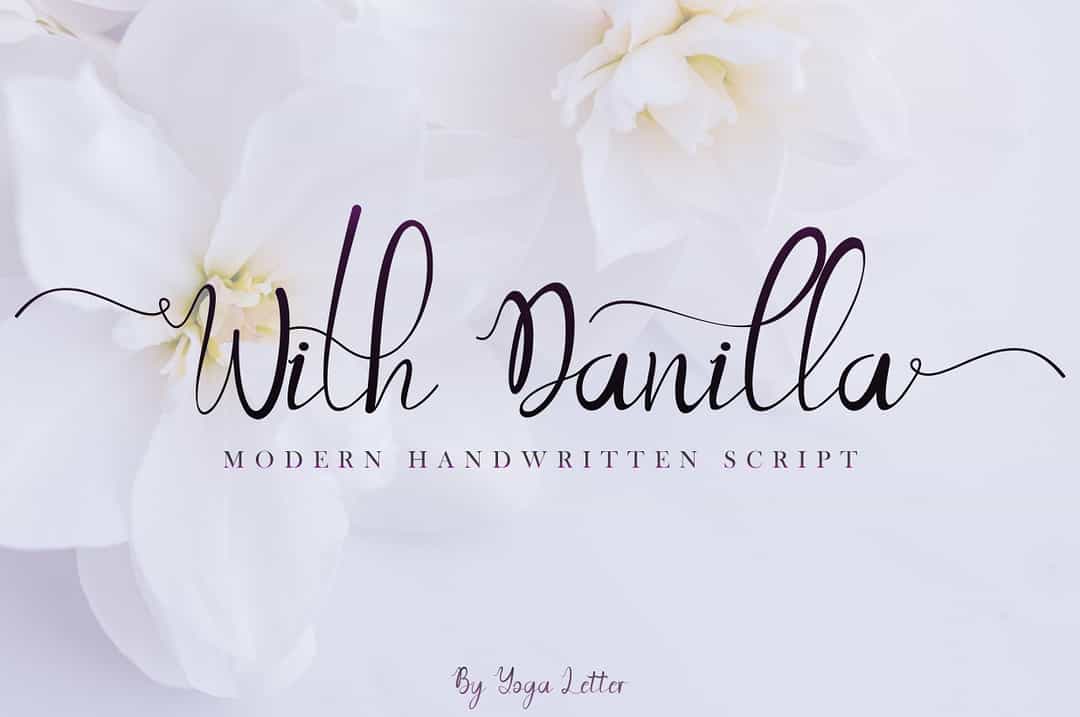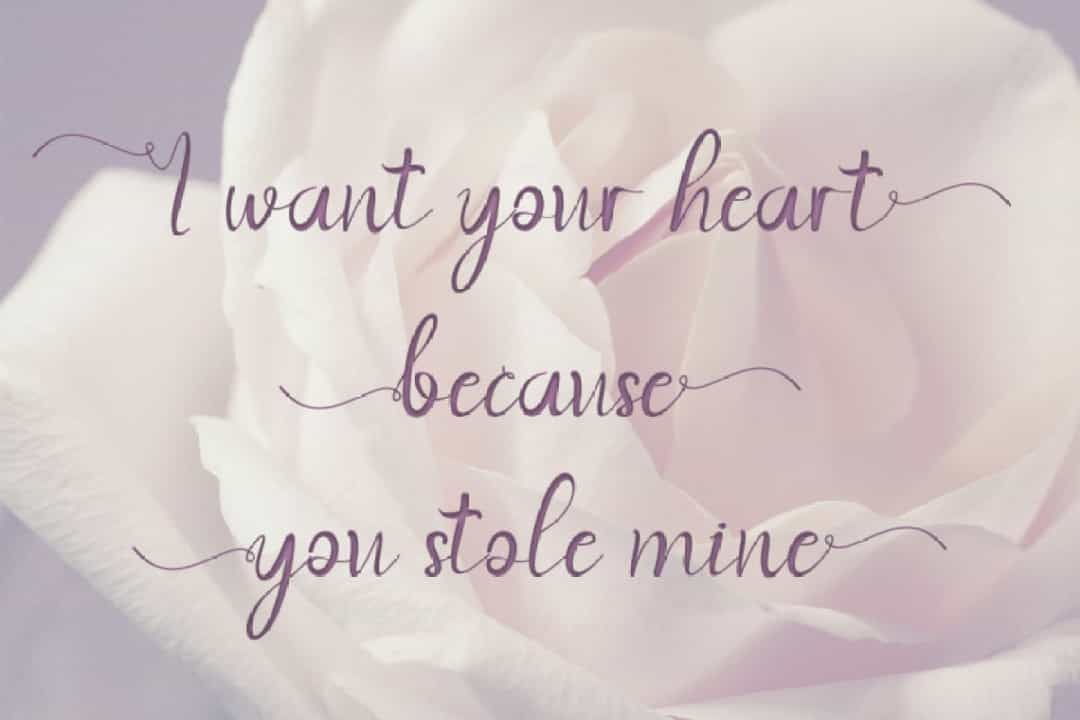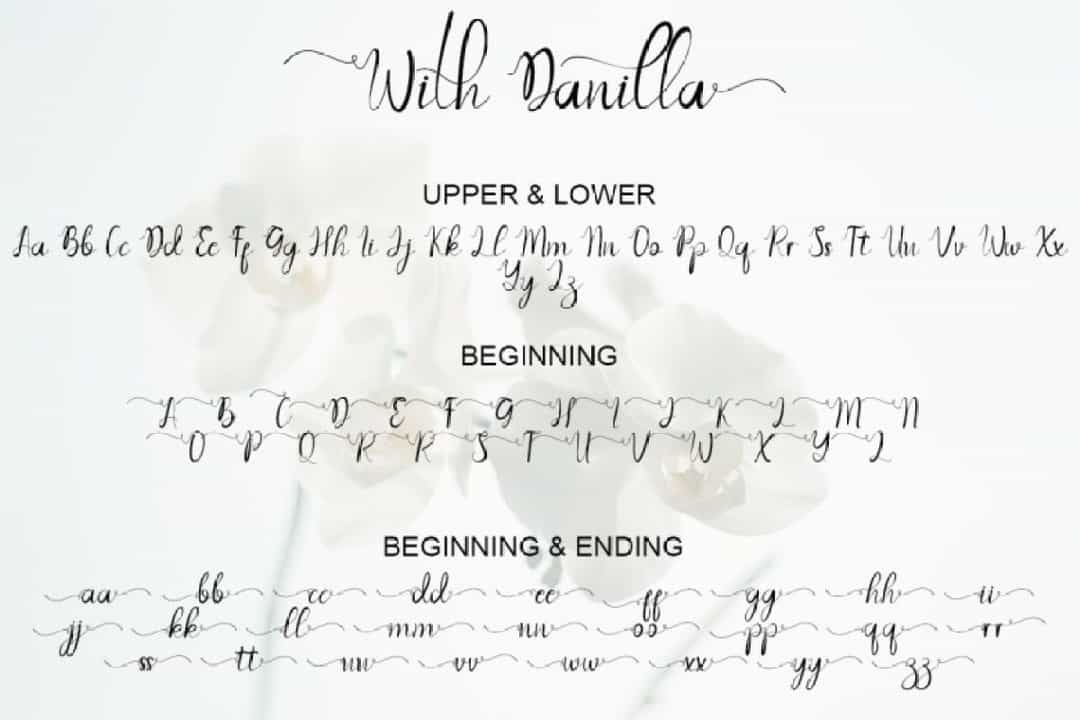
Danilla is a typeface of calligraphy style contemporary with handwriting and elegant dynamic. It’s shown that it comes filled with glyphs. It is such a beautiful design that it can be used in any event such as wedding occasions, brands, cards, among others. “ With Danilla” includes the full alphabet of beautiful Uppercase and also the beautiful and more modest lowercase letters, multilingual symbols, numerals, punctuation marks and ligatures.